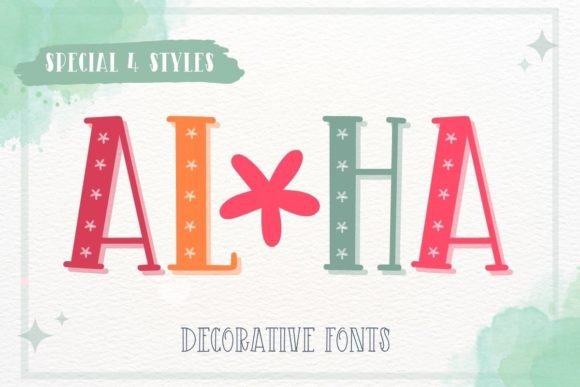
Looking for a way to add some pizzazz to your designs? Look no further than Aloha Font, the decorative font created by AnningArts. With its playful and fun vibe, Aloha Font is the perfect addition to any creative project.
Whether you're creating banners, social media posts, mugs, cards, or shirts, Aloha Font will add a touch of whimsy that's sure to delight your audience. Its cute and charming style is perfect for a wide variety of designs, making it a versatile choice that you'll turn to again and again.
But Aloha Font isn't just cute – it's also keyword-rich and informative, ensuring that your designs will be optimized for search engines. And with its eye-catching design, Aloha Font is sure to capture the attention of anyone who sees it.